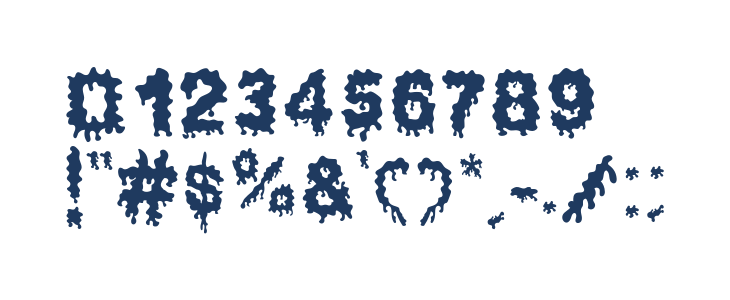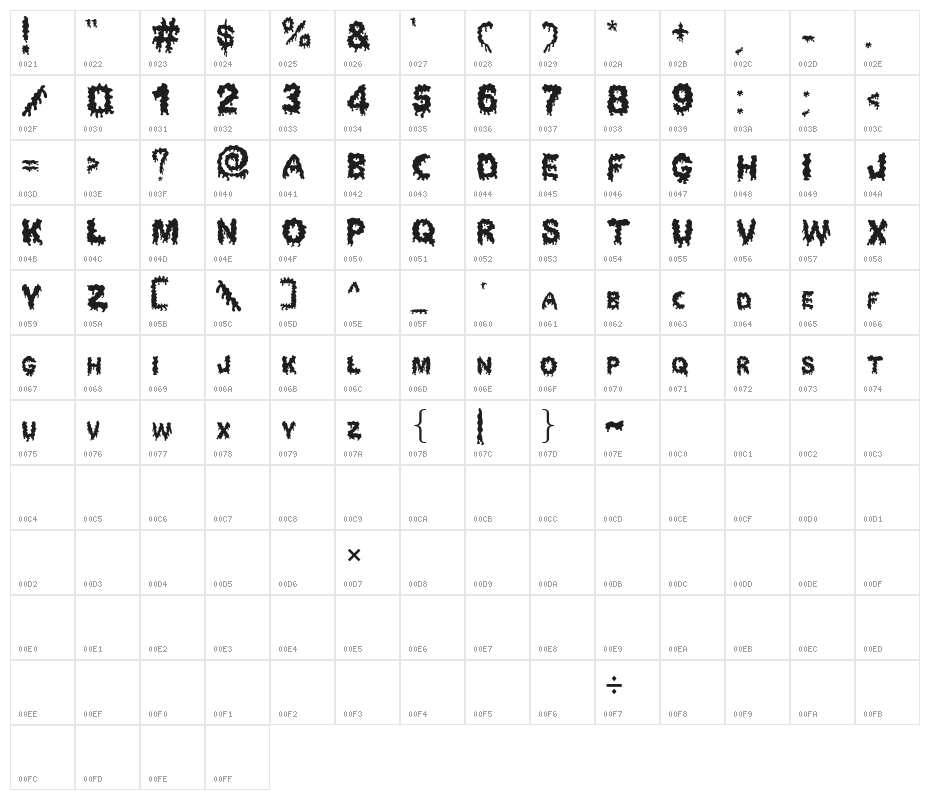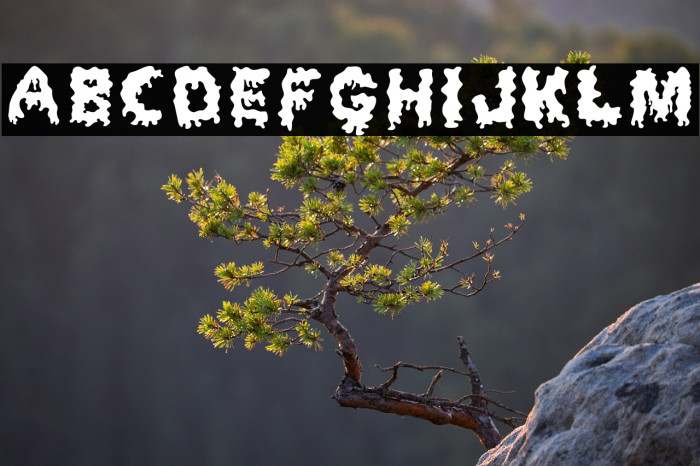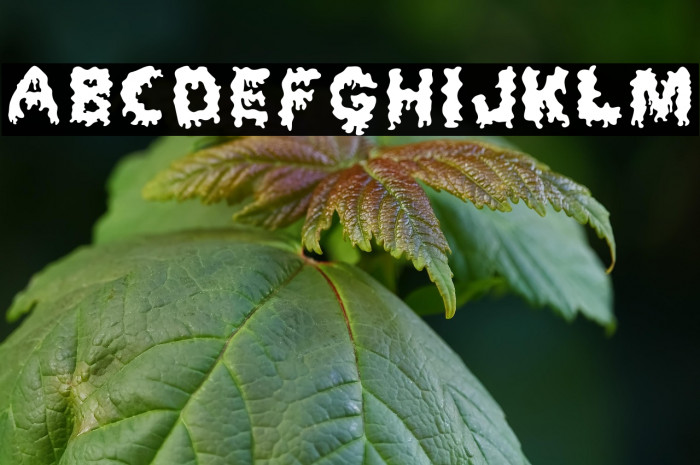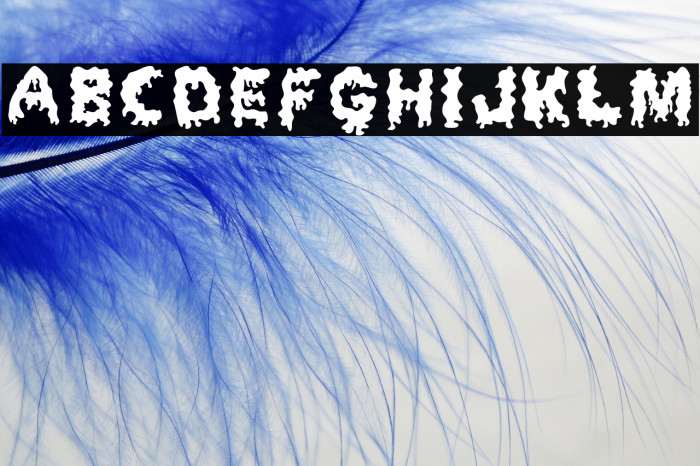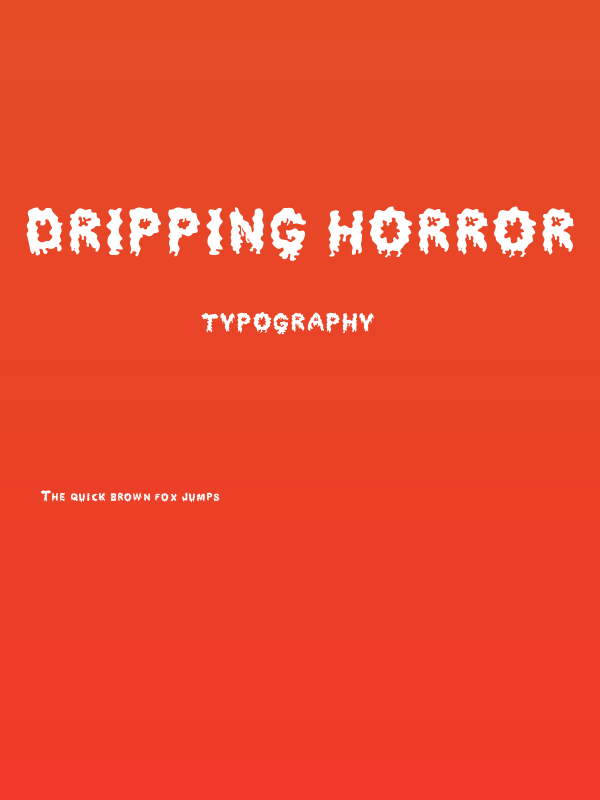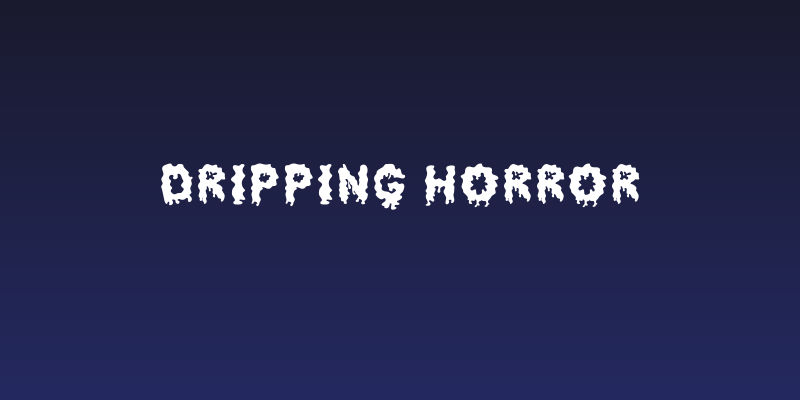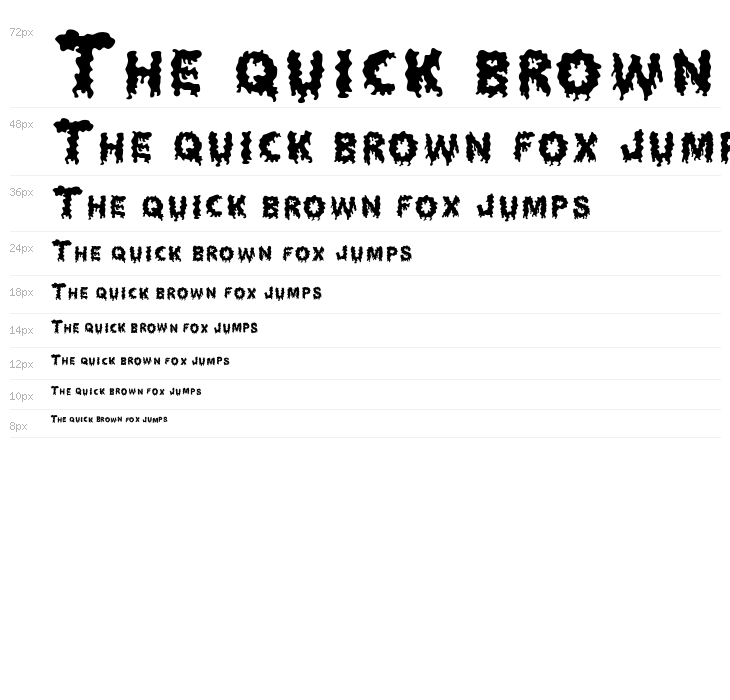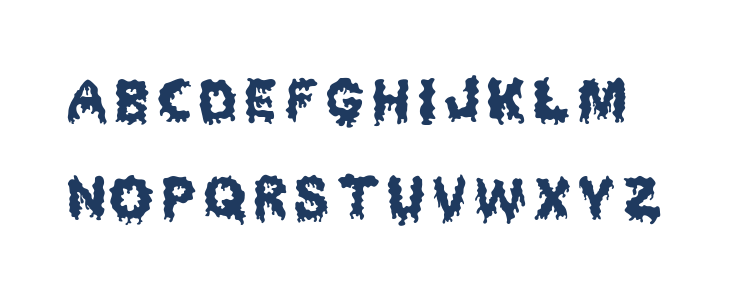
Dripping Horror Font
Dripping Horror Description
This font exudes a chilling and eerie vibe, perfect for horror-themed designs. The letters appear as if they are melting or dripping, creating a sense of unease and suspense. Each character is uniquely distorted, with irregular edges and a bold, heavy appearance. The font maintains a consistent style across uppercase, lowercase, numbers, and special characters, all of which share the same dripping effect. This design choice makes it highly suitable for Halloween decorations, horror movie posters, or any project that requires a spooky touch. The font's distinctiveness lies in its ability to convey a sense of horror and mystery, making it an excellent choice for creative projects that aim to captivate and unsettle the audience.
| Proposed Projects | Ideal for Halloween posters, horror movie titles, haunted house flyers, and spooky event invitations. |